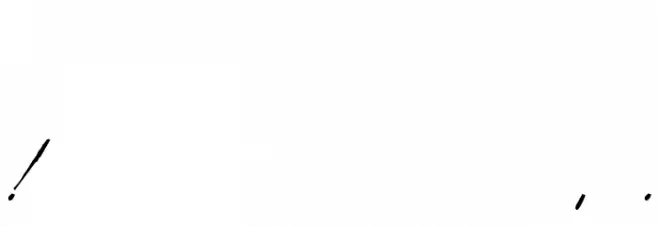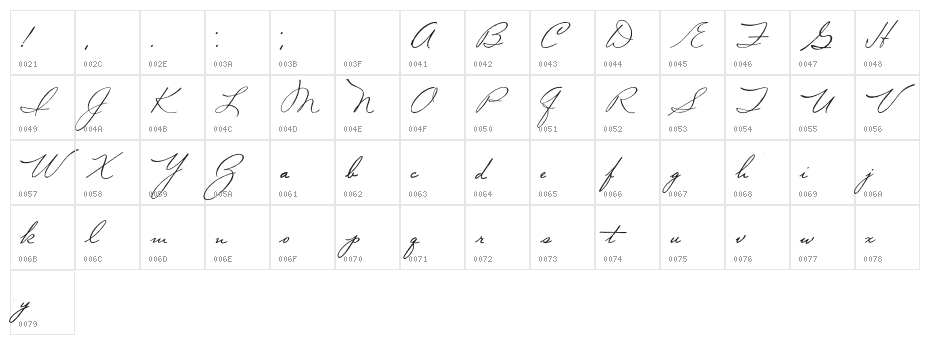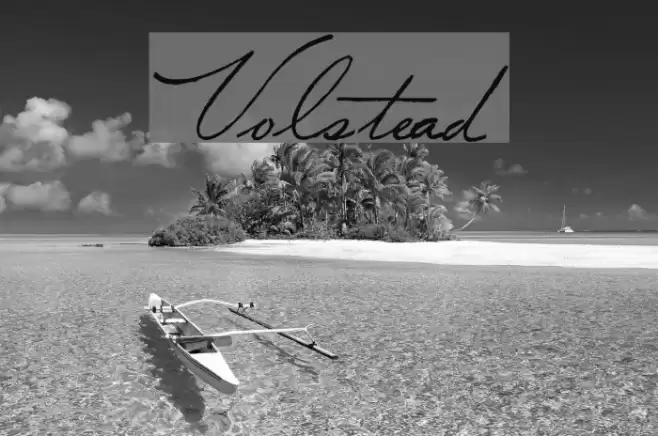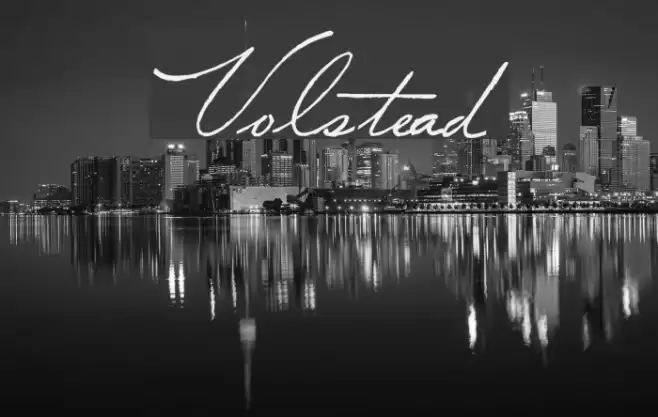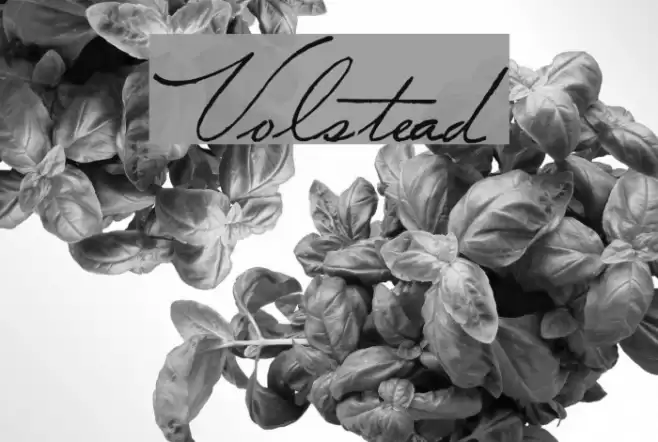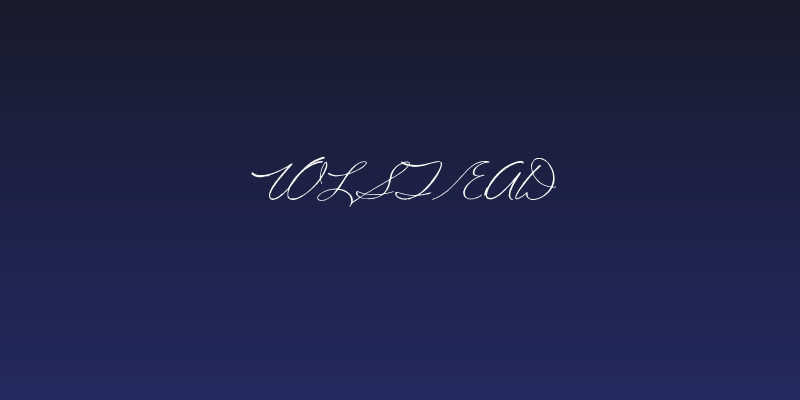
Volstead Font
Volstead Description
This elegant script font features a flowing, cursive style with intricate loops and swirls, reminiscent of traditional calligraphy. The uppercase letters are particularly ornate, with exaggerated flourishes that give the font a sophisticated and artistic appearance. The lowercase letters maintain a consistent slant and are connected, enhancing the cursive aesthetic. The overall design is delicate yet expressive, making it suitable for formal and decorative purposes. The font's thin strokes and high contrast between thick and thin lines add to its refined look.